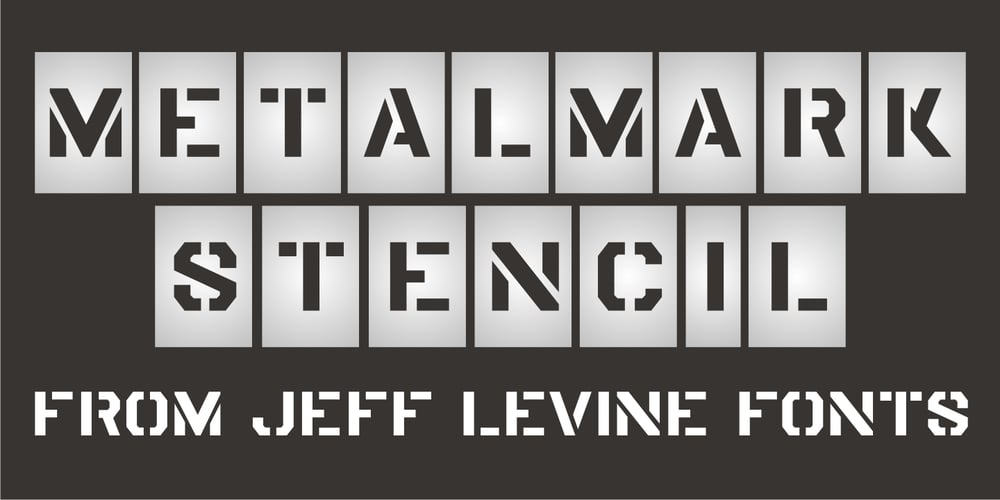
Metalmark Stencil JNL Font Family was designed by Jeff Levine and published by Jeff Levine. Metalmark Stencil JNL contains 1 styles and family package options. A lot of interesting variations in lettering style can be found in sets of antique tin or brass marking stencils. One such set was the model for Metalmark Stencil JNL, a bold sans with a chamfered look.